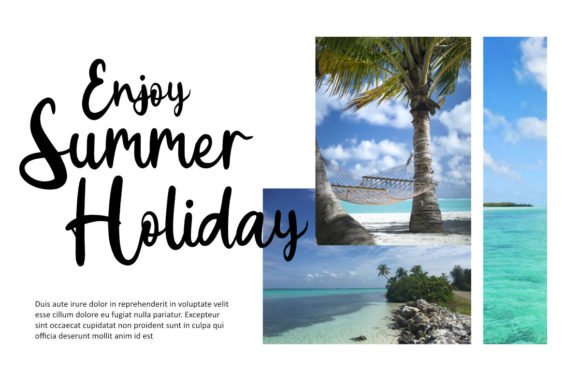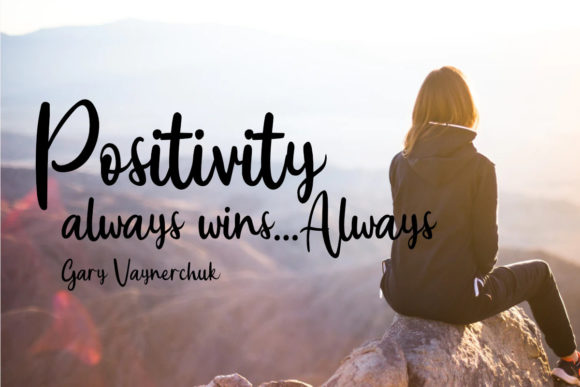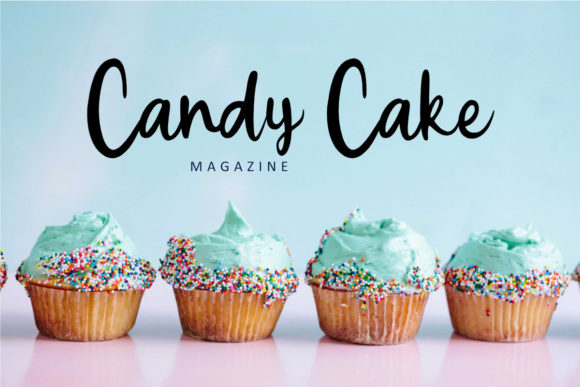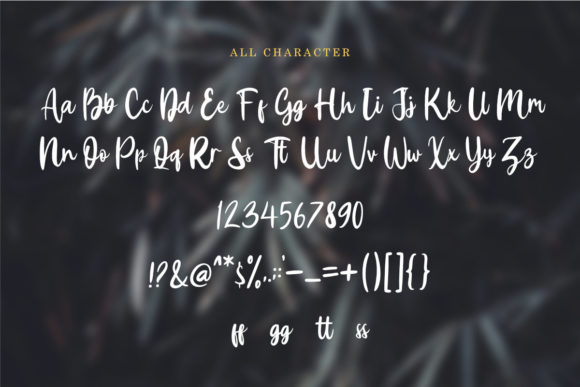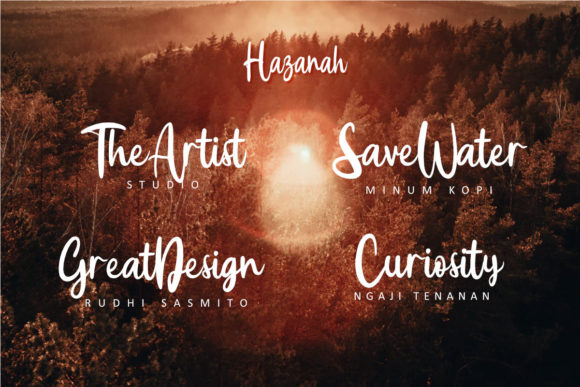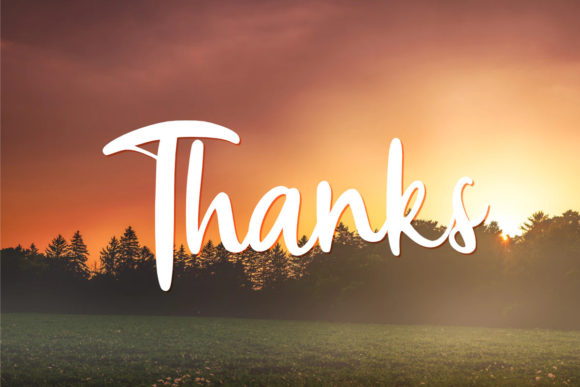
Introduction to Hazanah Font
Hazanah is a beautiful handwritten font, designed to become a true masterpiece.
Hazanah Font offers exceptional quality and versatility, making it a valuable addition to your design toolkit. Whether you’re creating for personal projects or commercial use, Hazanah Font delivers professional results.